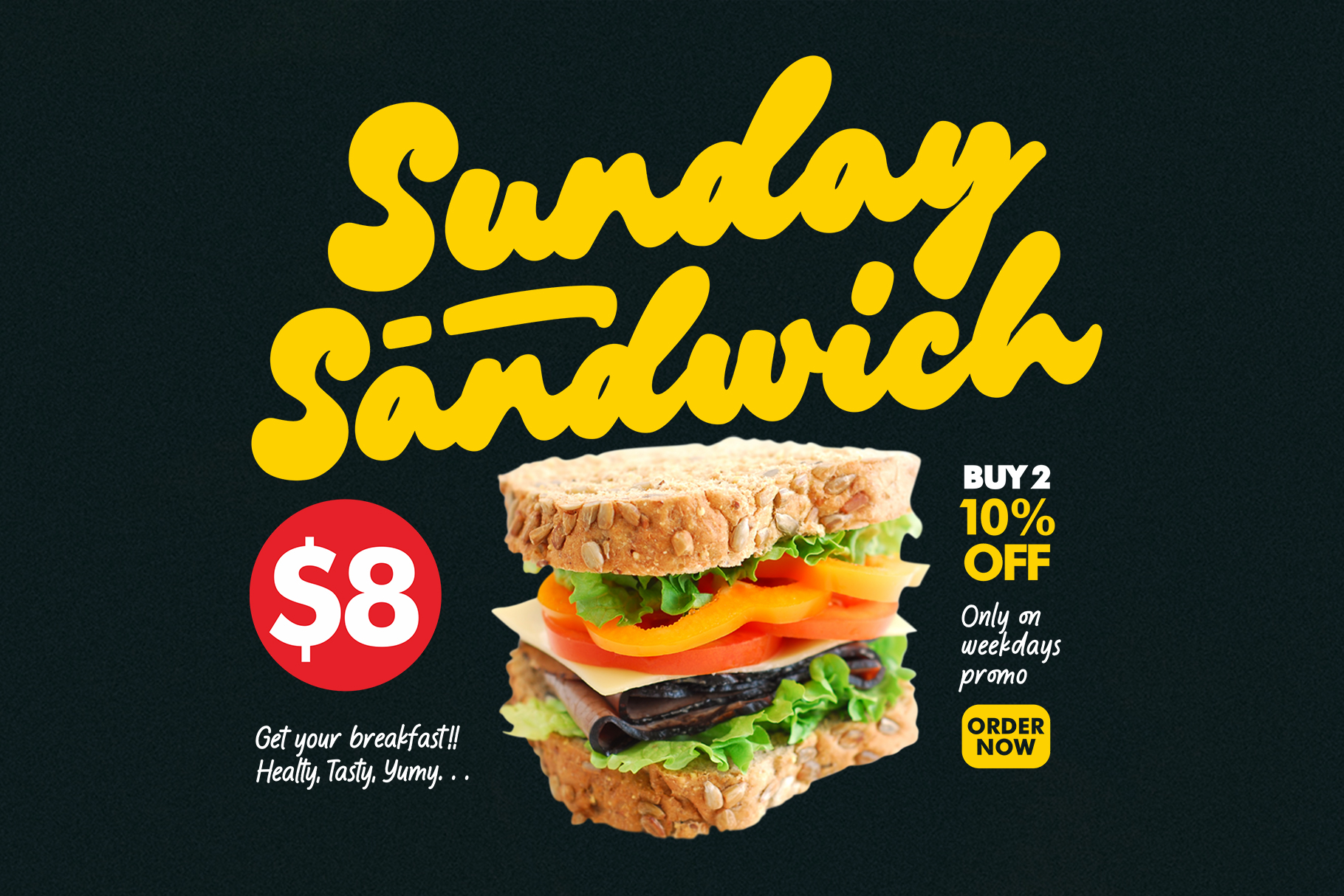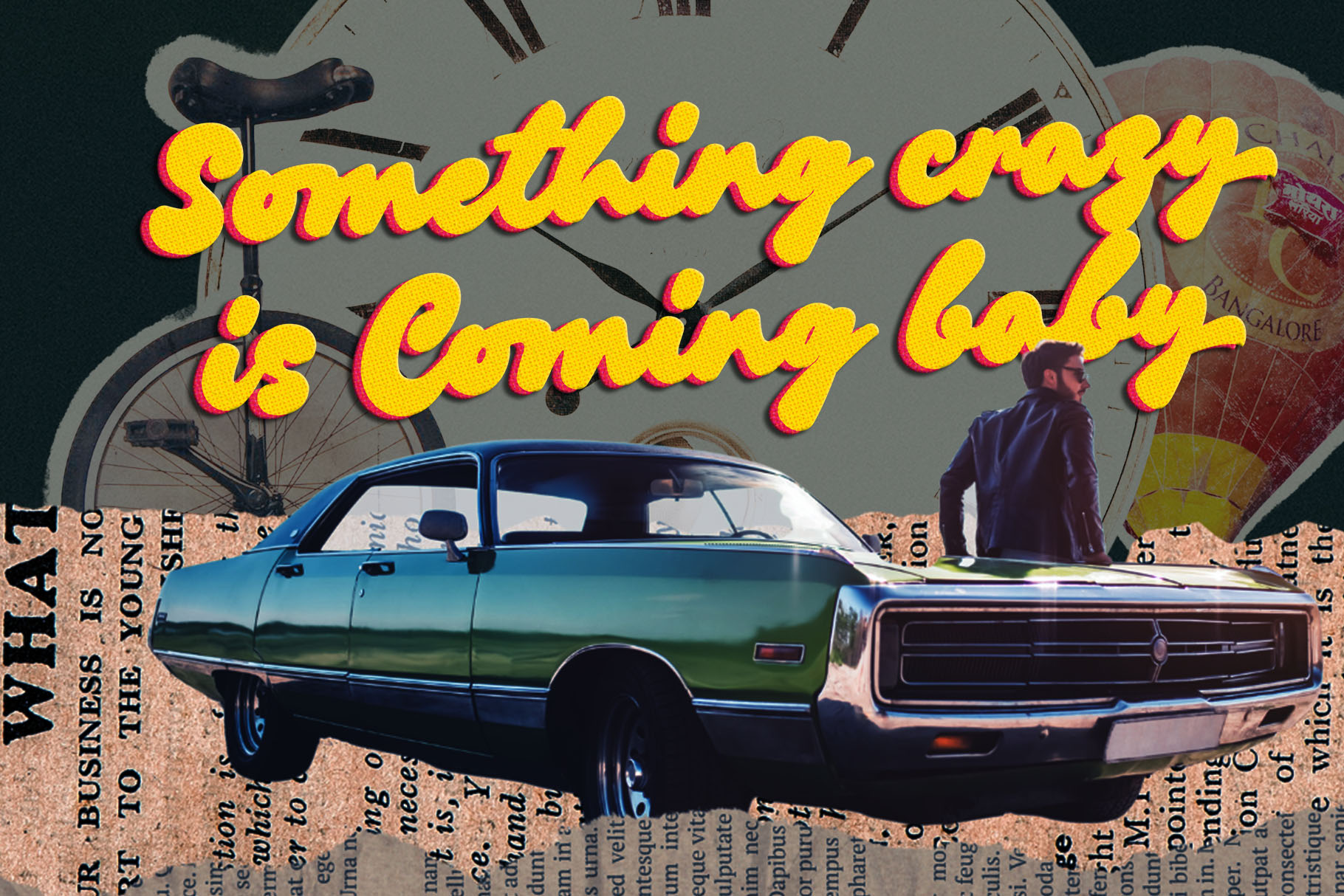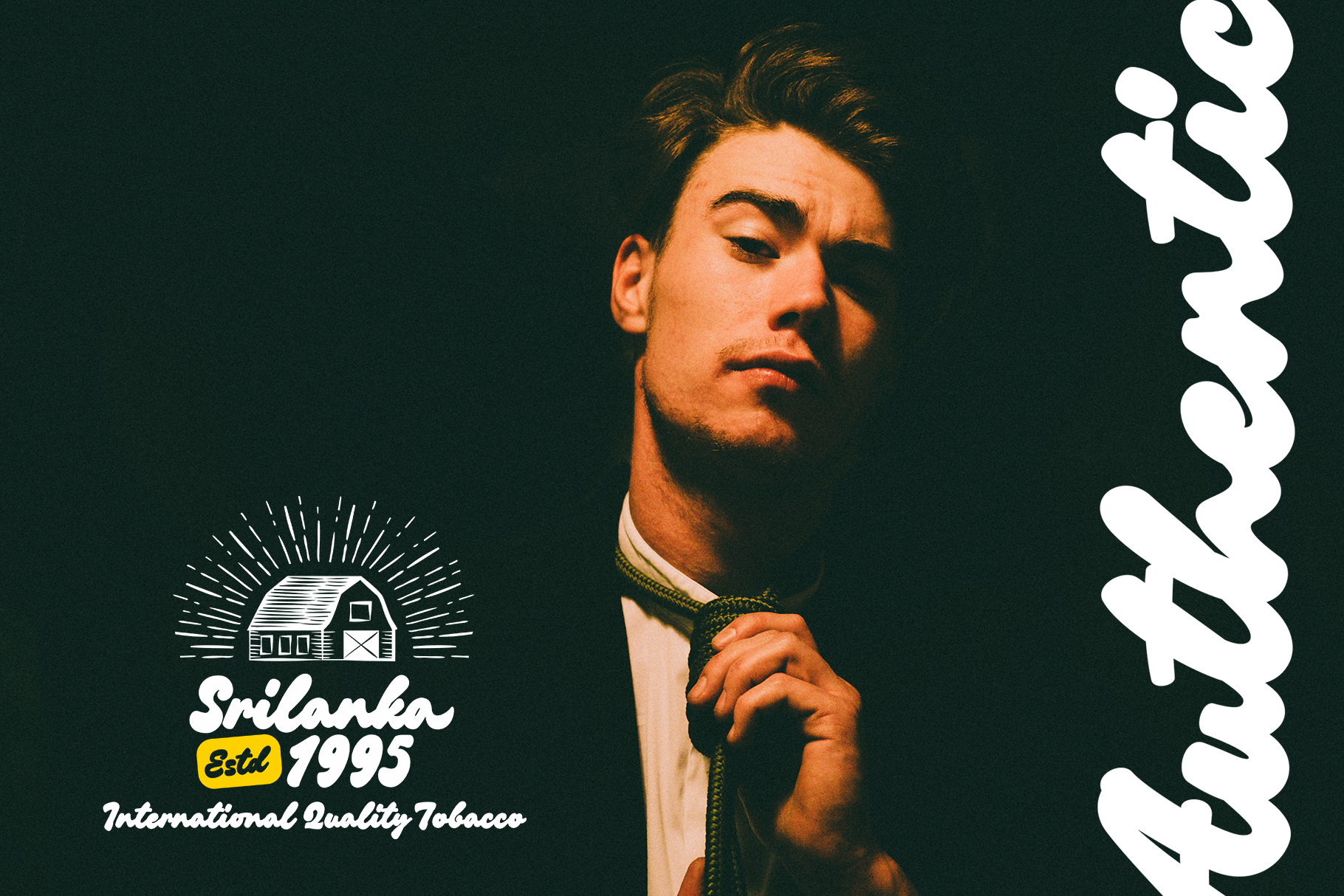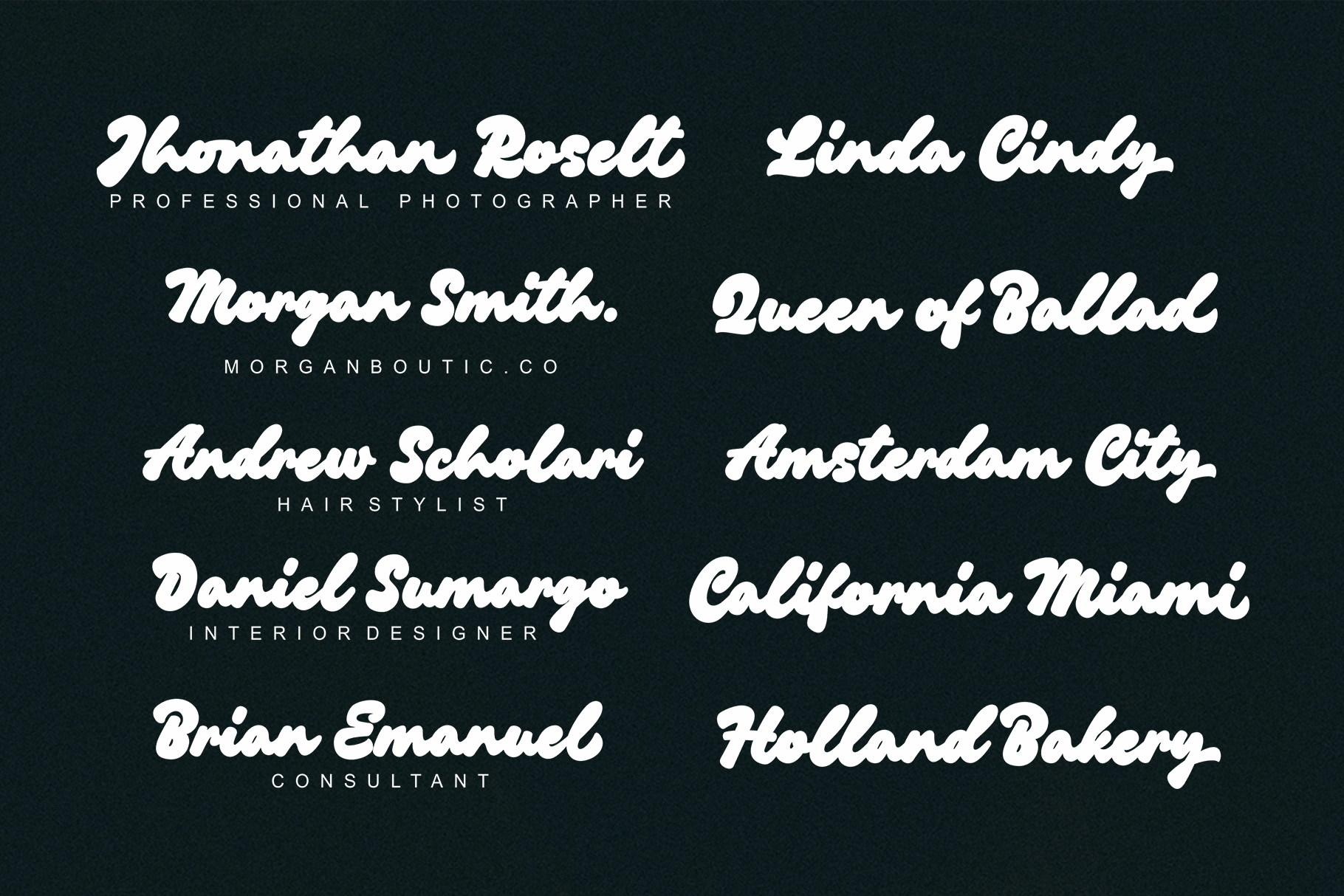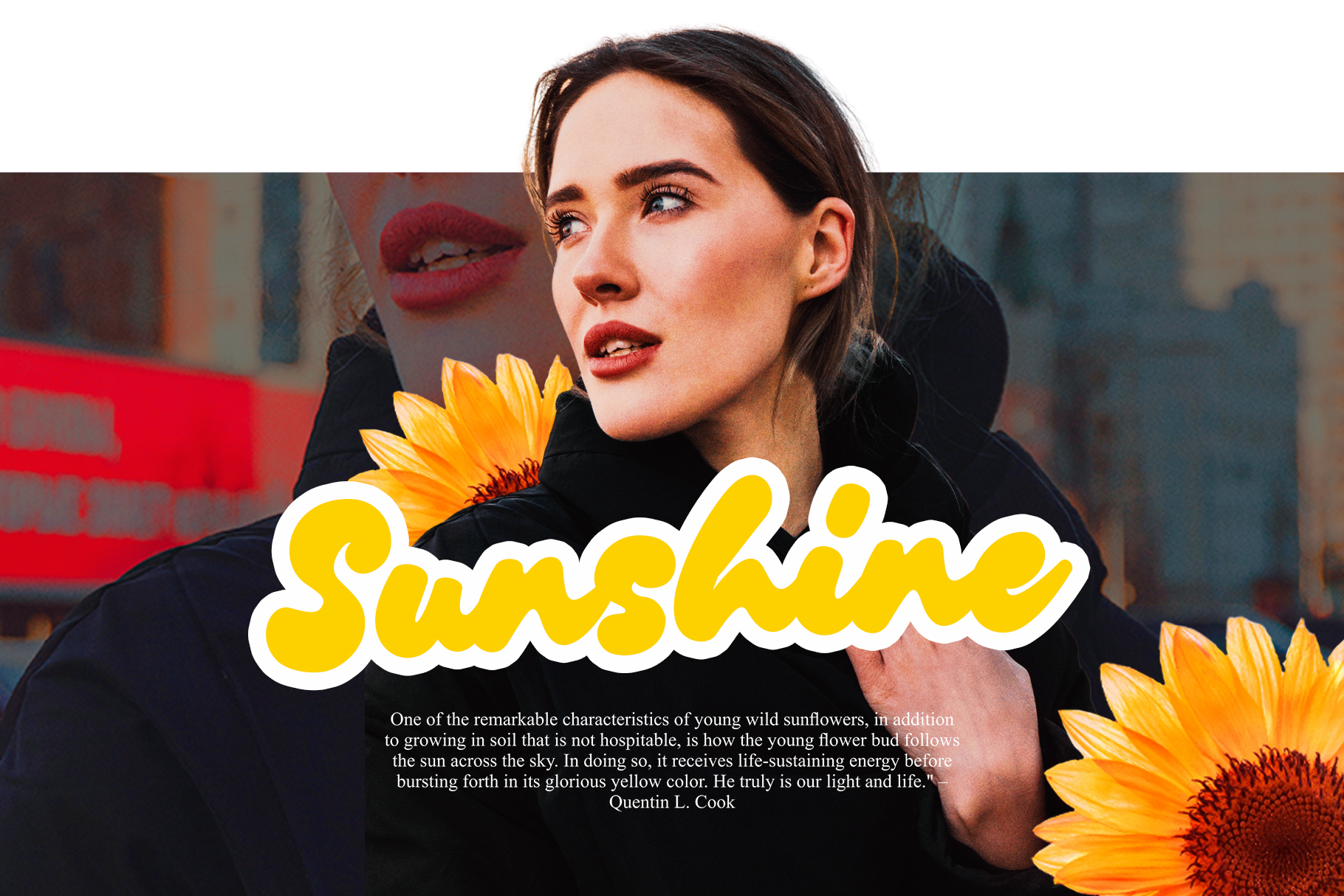
- Chillink – Bold Handwritten Font
Get ready to chill and thrill with Chillink Font! With its bold and playful style, this font is sure to make your text pop and stand out from the crowd. Plus, its unparalleled readability and versatility make it the perfect choice for any project, whether it’s a social media post, website design, or even a logo. The best thing about Chillink Font is that it’s so easy to use! Just copy and paste it into any project, and you’ll be ready to go in no time at all. And if you’re looking for more options, check out our other free fonts as well!